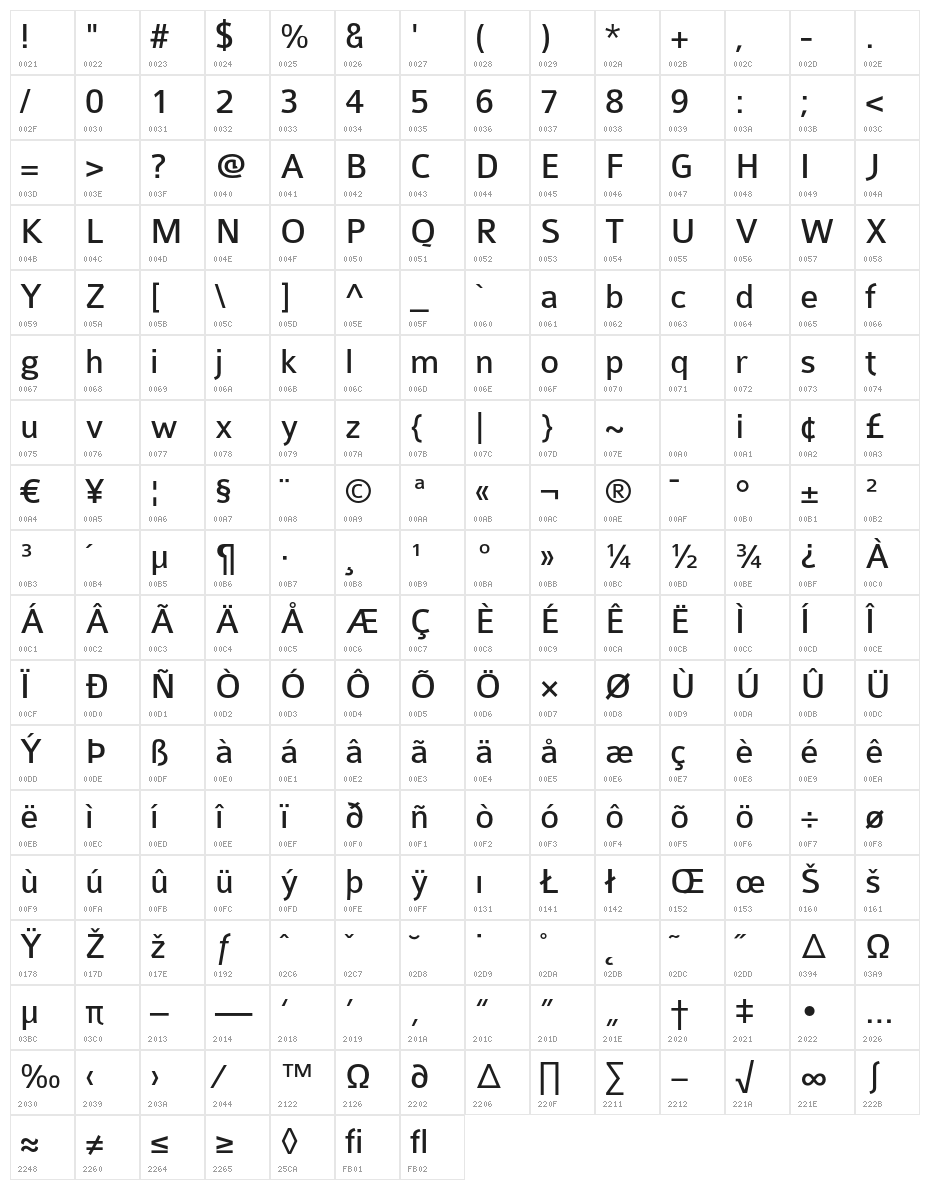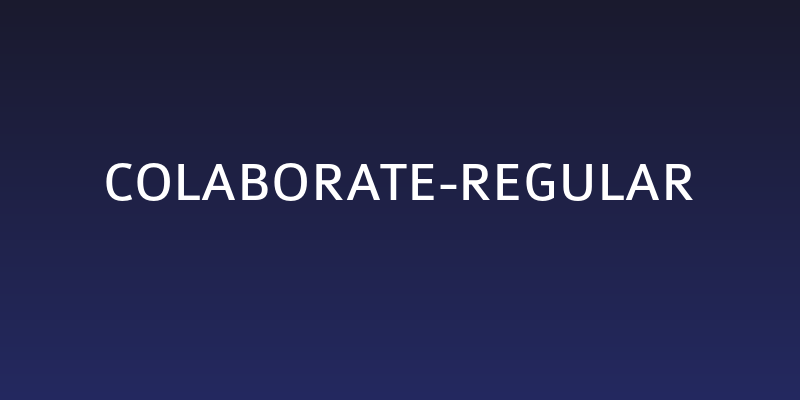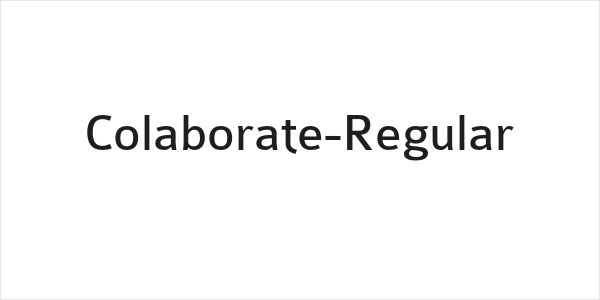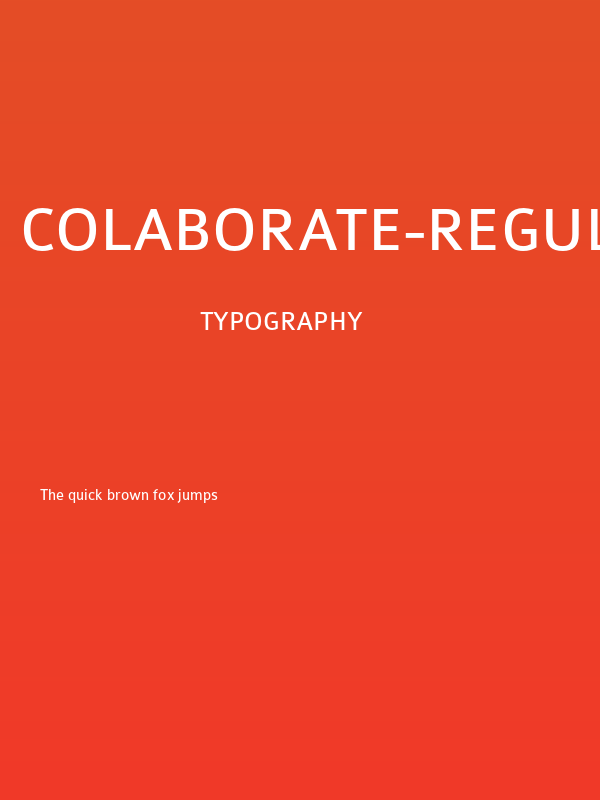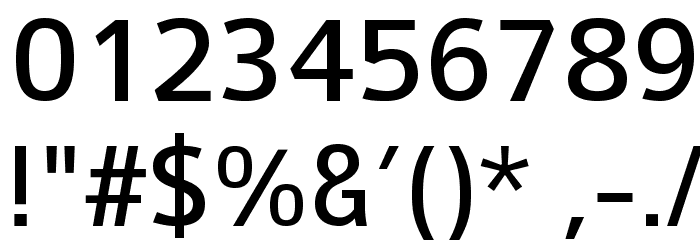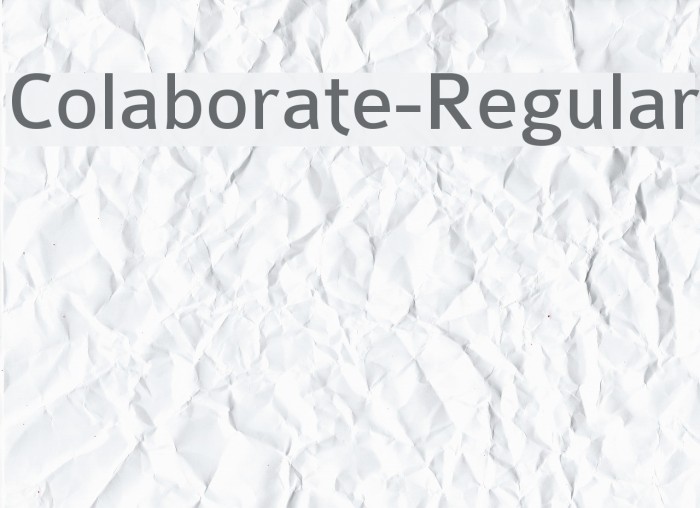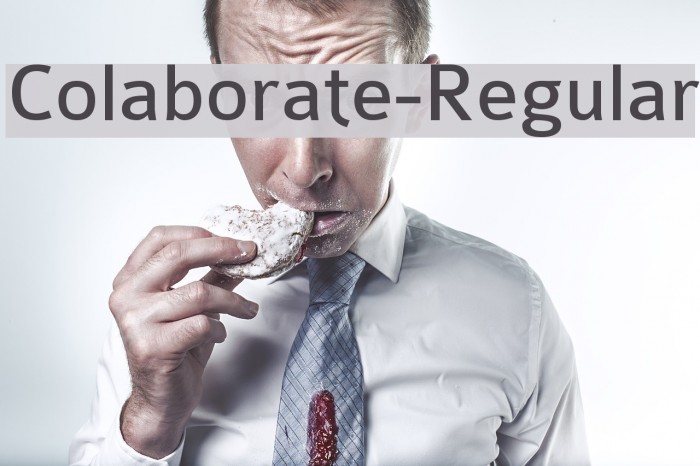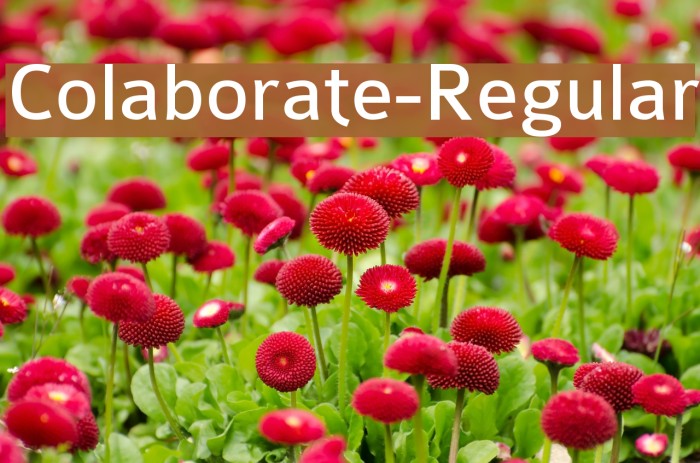
Colaborate-Regular Font
Colaborate-Regular Description
This typeface features a clean and modern sans-serif design, characterized by its simplicity and readability. The letters are well-proportioned with a consistent stroke width, providing a balanced and harmonious appearance. The uppercase and lowercase letters are distinct, with rounded edges that soften the overall look. The numerals are clear and easy to distinguish, making them suitable for both digital and print formats. The special characters are well-integrated, maintaining the font's cohesive style. Its versatility makes it suitable for a wide range of applications, from web design to corporate branding.
| Proposed Projects | Ideal for web design, corporate branding, user interfaces, and print media. |